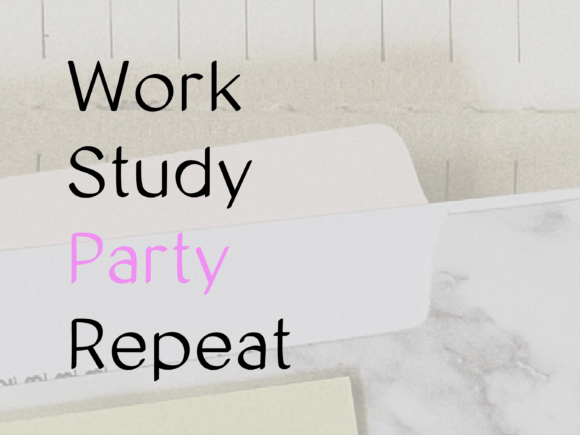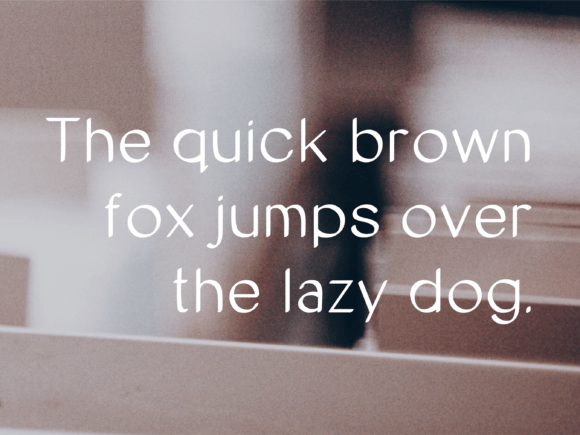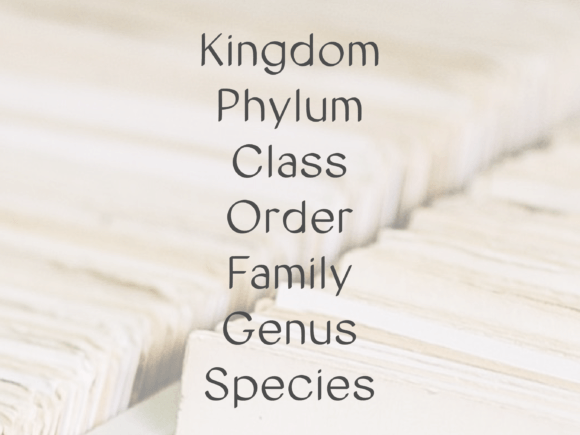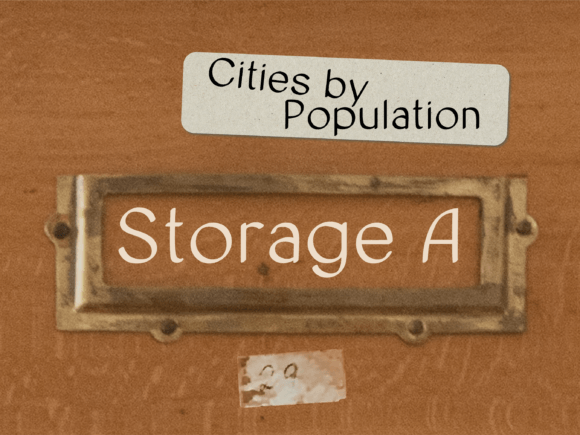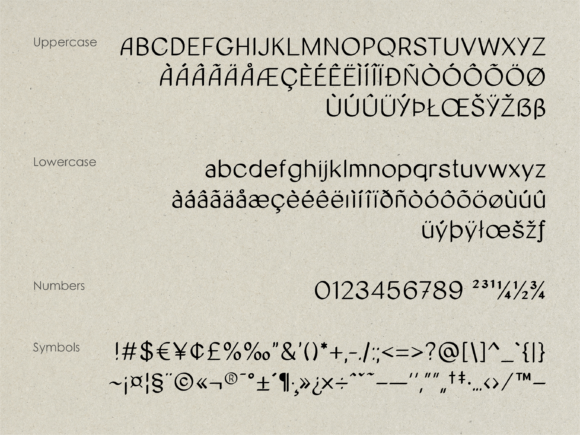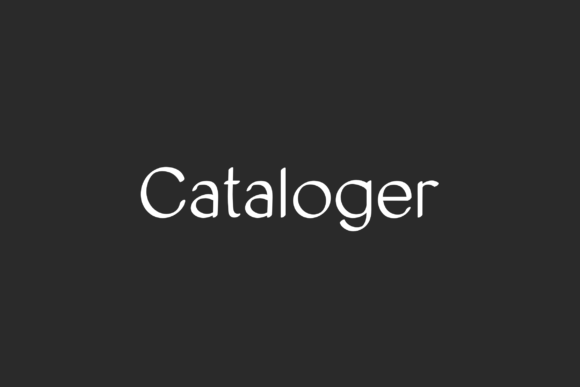
A Font that Keeps You on Track: Catologer Font
Have you ever found yourself rummaging through a cluttered closet or a messy pantry, searching for that one thing you know is hiding somewhere? The frustration is real, but the solution is simpler than you think. A well-organized space starts with clear labels, and that’s where the Catologer Font comes in – a typography solution designed to help you keep your storage areas tidy and your life more manageable.
As a designer, you know the importance of a good font in creating a professional and cohesive look. The Catologer Font is no exception, offering a clean and legible design that’s perfect for use in office settings, as well as in the home. Whether you’re organizing a closet, a pantry, or a entire home, this font is a valuable asset in your design toolkit.
Cataloger Font Key Features
- Font Family: Cataloger is a high-quality, professional font designed for various applications.
- Font Size: Cataloger font is available in 4 different font sizes, ranging from 12 to 72 points, catering to various design requirements.
- Resolution: Optimized for high-resolution displays, Cataloger font is suitable for use in digital media, including print-on-demand, web design, and more.
- Unique Characteristics: Cataloger features a unique blend of modern and traditional design elements, making it an excellent choice for creating visually appealing and professional-looking content.
Designer Review: Catologer Font
Overall, I think Catologer Font is a great addition to any designer’s toolkit. ✨ The font’s clean and modern aesthetic makes it perfect for digital products and marketing materials. The font’s versatility also shines through in its ability to be used for both body text and headings.
Some of my favorite features of Catologer Font include:
- ✨ Its excellent legibility, making it perfect for reading large blocks of text.
- ✨ The font’s open and airy feel, which adds a touch of sophistication to any design.
- ✨ The extensive language support, making it a great choice for international projects.
However, I do have a few concerns:
- ⚠️ The font’s x-height is a bit on the large side, which can make it difficult to pair with other fonts.
- ⚠️ The font’s default line height is a bit too tight, which can make text feel cramped.
- ⚠️ The font’s italic style is a bit too extreme, which can be jarring to read.
Overall, I think Catologer Font is a solid choice for designers looking for a modern and versatile font. With a few tweaks to the line height and italic style, I think it has the potential to be a truly great font.
Getting the Most Out of Cataloger Font
For optimal results, use Cataloger Font in conjunction with high-quality images and a clear layout.
Experiment with different font sizes and styles to achieve a visually appealing design.
Cataloger Font is ideal for:
- Product catalogs
- Branding and identity design
Playfair Display is an elegant and luxurious font, perfect for creating a sophisticated and high-end look. It’s ideal for use in titles, headings, and other prominent text elements. Compared to Cataloger Font, Playfair Display has a more refined and formal appearance, making it suitable for applications such as luxury branding, high-end advertising, and fine art.
Merriweather is a classic serif font that exudes a sense of tradition and sophistication. It’s an excellent choice for body text and is particularly well-suited for use in books, magazines, and other publications. Compared to Cataloger Font, Merriweather has a more formal and traditional appearance, making it suitable for applications such as editorial design, publishing, and academic writing.
Didot is a luxurious and elegant font that is perfect for creating a sense of luxury and sophistication. It’s ideal for use in titles, headings, and other prominent text elements. Compared to Cataloger Font, Didot has a more refined and formal appearance, making it suitable for applications such as high-end branding, advertising, and fine art.